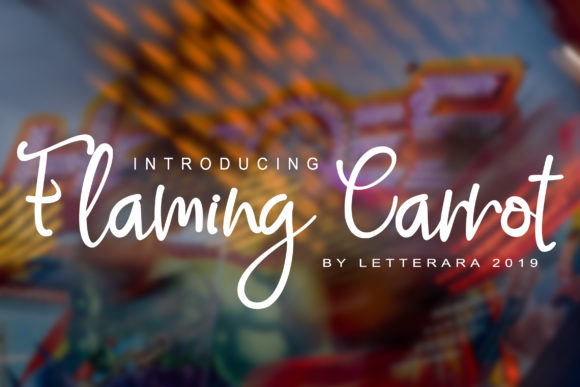
In a world teeming with digital monotony, where fonts often blend into a sea of homogeneity, Flaming Carrot Font emerges as a breath of fresh air, a script font that dances with individuality and charm. Inspired by the free-spirited nature of handwritten notes, Flaming Carrot Font captures the essence of authenticity and personal expression. Step into a realm where your words take on a life of their own, flowing effortlessly from one character to the next, as if penned by an invisible hand guided by the winds of creativity.
Crafted with meticulous attention to detail, each letterform in Flaming Carrot Font is a testament to the beauty of imperfection. Its strokes, reminiscent of a calligrapher's quill, possess a natural flair that adds a touch of elegance to any design. Whether you're crafting heartfelt invitations, greeting cards that carry your warmest wishes, or posters that speak volumes, Flaming Carrot Font infuses your creations with a unique personality that captivates and enchants.
Journey beyond the ordinary with Flaming Carrot Font and discover a world where your designs transcend the boundaries of the mundane. Its versatility knows no bounds, lending itself effortlessly to an array of projects. From name cards that leave a lasting impression to quotes that inspire and uplift, Flaming Carrot Font breathes life into your creations, transforming them into captivating works of art. Experience the joy of crafting blog headers that dance with visual poetry, branding that exudes sophistication, and logos that command attention with their distinctive flair.
Embrace the allure of Flaming Carrot Font and let your designs take flight. Its boundless creativity will ignite your imagination, propelling you to new heights of artistic expression. Dive into the world of fashion and apparel, where Flaming Carrot Font adorns garments with a touch of whimsical charm. Transform stationery into a canvas of elegance, where letters dance across the page with a graceful fluidity. With Flaming Carrot Font as your creative companion, the possibilities are endless.